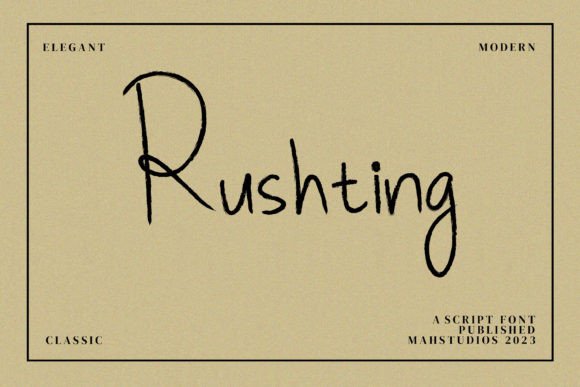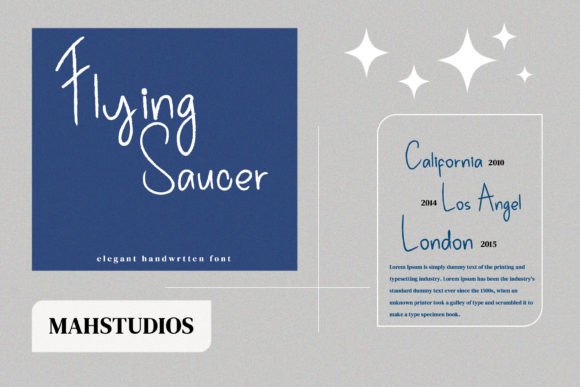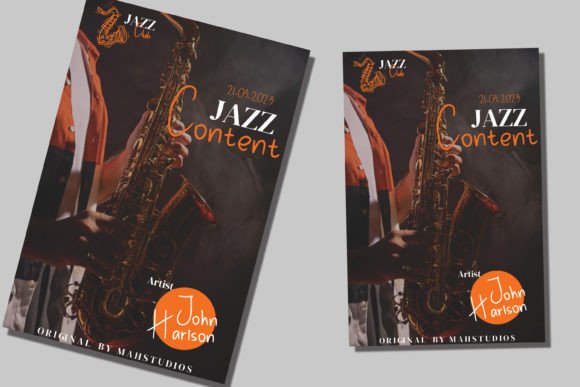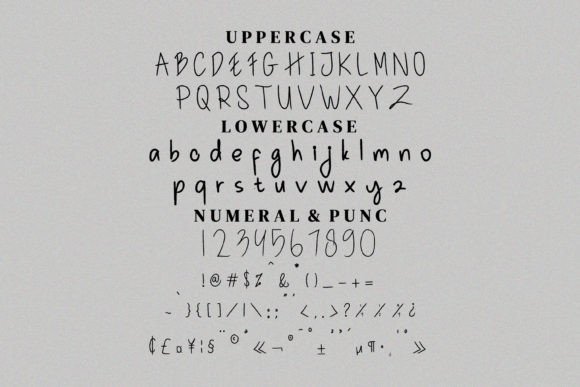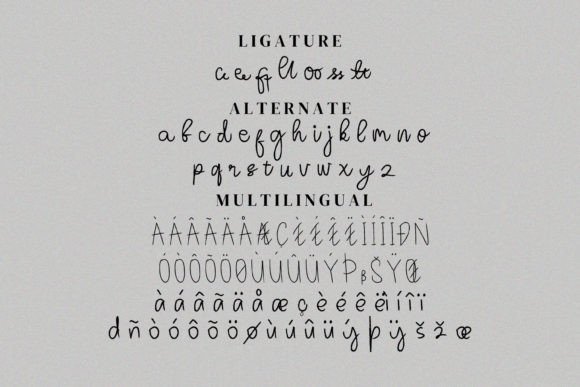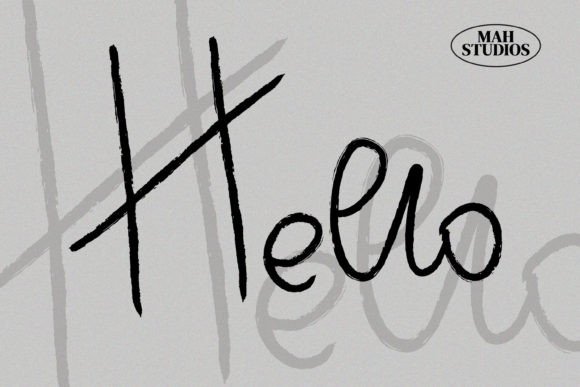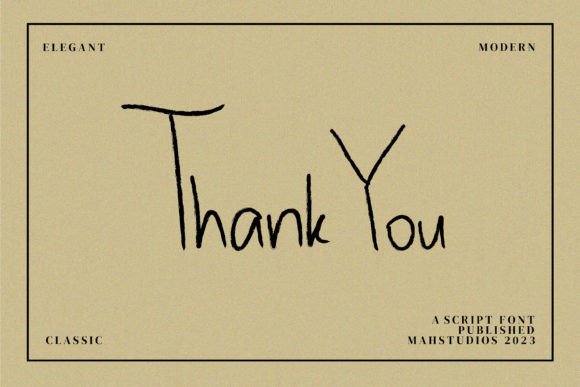
An Elegant Script Font with Premium Style
Rushting is a luxurious script font designed to bring sophistication and beauty to any creative project. With smooth, flowing lines and stylish curves, it creates a refined look that feels modern and timeless. Whether you’re working on branding, packaging, or personal keepsakes, Rushting helps your designs stand out with class and elegance.
Its unique style makes it the perfect choice when you want your work to feel polished and high-end.
Rushting is a versatile font you’ll want to use across different designs. It’s ideal for branding projects like logos, business cards, and product labels. The elegant script style adds a premium touch that elevates your brand image and helps you leave a lasting impression.
For events, Rushting shines on wedding invitations, save-the-date cards, and thank you notes. The graceful strokes create a romantic mood that feels personal and heartfelt.
This font is also perfect for merchandise like mugs, tote bags, and t-shirts. The stylish lettering holds up beautifully in print and makes your products look exclusive.
On social media, Rushting ensures your posts look cohesive and professional. Whether you’re sharing announcements, quotes, or promotions, this font keeps your content polished and attractive.
Clear, Refined, and Easy to Read
Even with its decorative style, Rushting remains clear and legible at any size. The balanced spacing and smooth connections between letters help your text look clean and easy to follow, whether in big headlines or small captions.
For a modern, organized layout, pair Rushting with a minimalist sans-serif font. Use Rushting for titles and feature text, and the sans-serif for supporting details. This combination creates a polished look that feels elegant and fresh.
To make the most of Rushting’s luxury feel, use neutral color palettes and soft backgrounds. Shades like ivory, beige, or blush pink help the script stand out without overpowering your design.
When designing event stationery or product packaging, consider adding subtle details like delicate icons or fine borders to complement the font’s graceful look.
On social media, embrace white space so your text remains the focus. This approach keeps your content clean and easy to read.
Think about the mood you want to create. Rushting is perfect for projects that should feel sophisticated, romantic, and premium.
Rushting isn’t just another script font—it’s a creative tool that elevates your designs with elegance and style. From branding to personal projects, this font adapts seamlessly to any purpose and adds a refined touch to everything you create.
Adding Rushting to your font collection ensures you always have a versatile, stylish option ready for any design. Whether you’re working on logos, event invitations, or social media graphics, this font makes every project feel special and high-end.